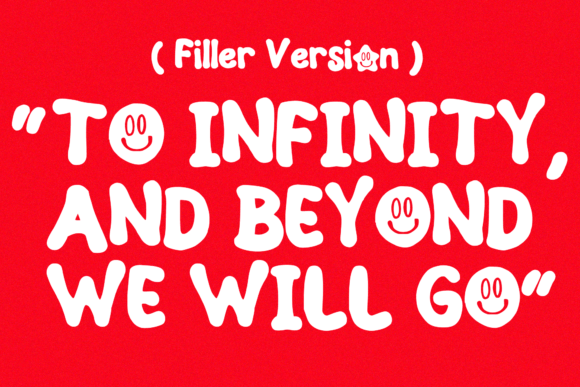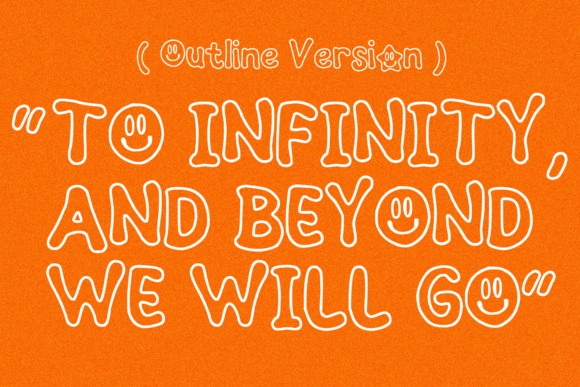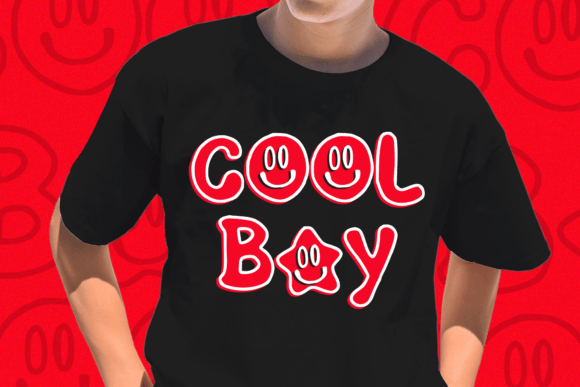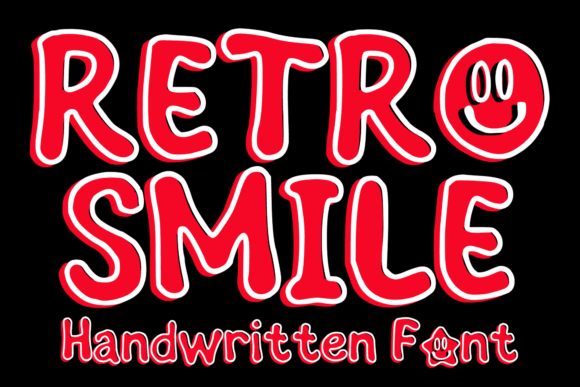
Introduction to Retro Smile Font
Retro Smile is a cool font for your fun displays.
It comes with 2 versions (filler and outline) The fun and happy vibe will be there when you use it.